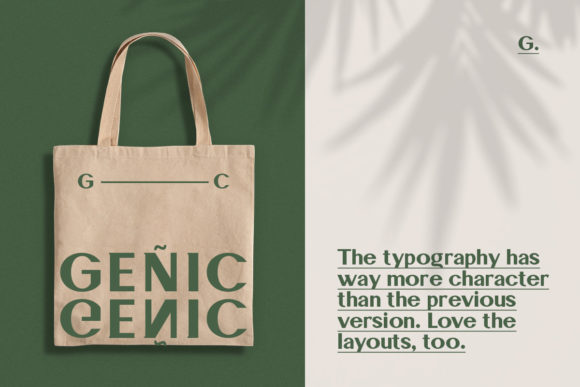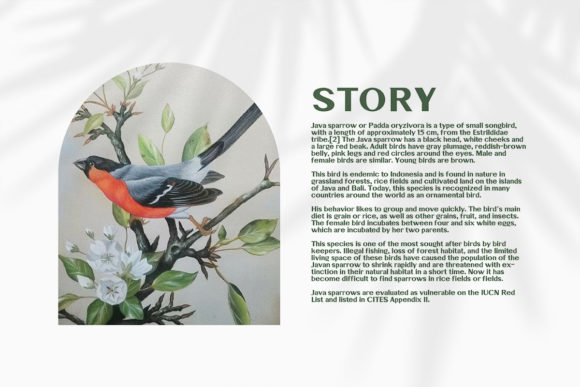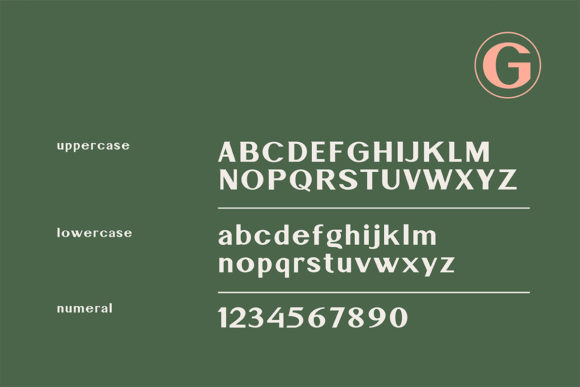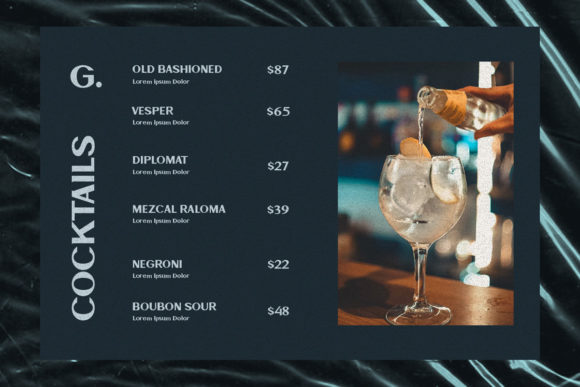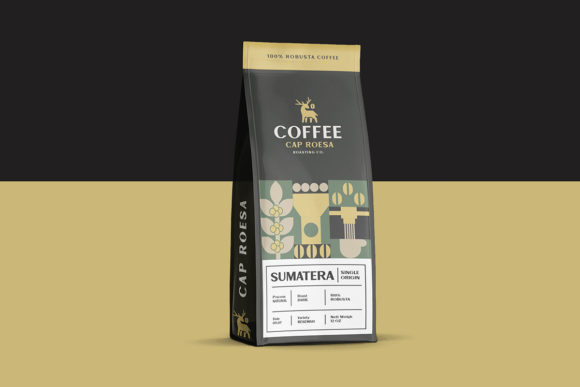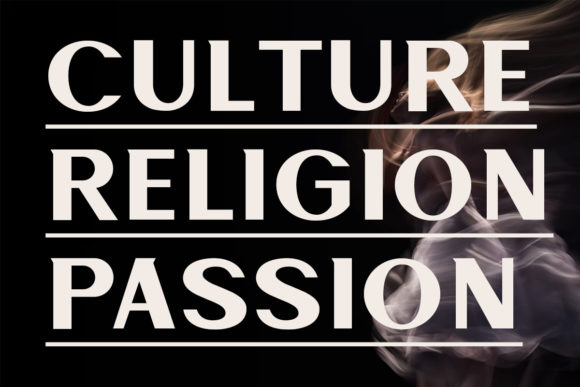
Introducing Glatic Font: Elevate Your Designs with a Touch of Vintage Luxury
In the world of typography, fonts play a crucial role in conveying the tone and personality of a design. For designers and crafters looking to add a touch of sophistication and elegance to their creations, Glatic Font is an excellent choice. This vintage-styled and luxurious serif font is designed to enhance any project, regardless of the topic or theme. In this article, we’ll explore the features and benefits of Glatic Font, and why it’s a wonderful asset to your font library.
The Charm of Glatic Font
Glatic Font boasts a unique blend of classic and luxurious elements, making it perfect for designs that require a touch of sophistication. Its serif style gives it a traditional feel, while its clean lines and elegant curves add a level of refinement. Whether you’re working on a branding project, a website, or a print design, Glatic Font is sure to impress.
Key Features of Glatic Font
• Vintage Style: Glatic Font’s vintage-inspired design makes it perfect for projects that require a classic, timeless look.
• Luxurious Feel: The font’s elegant curves and clean lines give it a luxurious feel, making it ideal for high-end designs.
• Serif Style: The serif style of Glatic Font adds a level of sophistication and elegance to any design.
• Versatile: Glatic Font can be used for a wide range of projects, from branding and advertising to web design and print materials.
Benefits of Using Glatic Font
So, why should you choose Glatic Font for your next project? Here are just a few benefits of using this luxurious serif font:
• Enhance Your Brand: Glatic Font can help elevate your brand’s image and convey a sense of sophistication and elegance.
• Stand Out from the Crowd: With its unique vintage style and luxurious feel, Glatic Font can help your design stand out from the competition.
• Easy to Read: The font’s clean lines and clear typography make it easy to read, even at small sizes.
• Customizable: Glatic Font can be easily customized to fit your design needs, making it a versatile choice for any project.
How to Use Glatic Font in Your Designs
Using Glatic Font in your designs is easy. Here are a few tips to get you started:
• Pair it with Other Fonts: Glatic Font pairs well with other fonts, making it easy to create a unique and harmonious typography scheme.
• Experiment with Sizes: Glatic Font looks great at a range of sizes, from large headings to small body text.
• Play with Colors: The font’s elegant design looks great in a range of colors, from bold and bright to subtle and muted.
In conclusion, Glatic Font is a luxurious serif font that can elevate any design with its vintage style and elegant feel. With its versatile design, easy readability, and customization options, it’s a wonderful asset to your font library. Whether you’re a designer or crafter looking to add a touch of sophistication to your creations, Glatic Font is an excellent choice. So why not give it a try and see how it can enhance your next project?